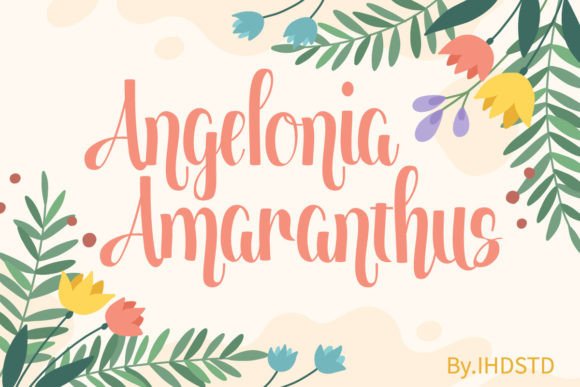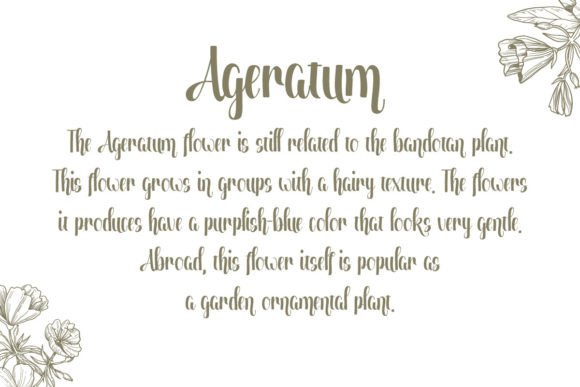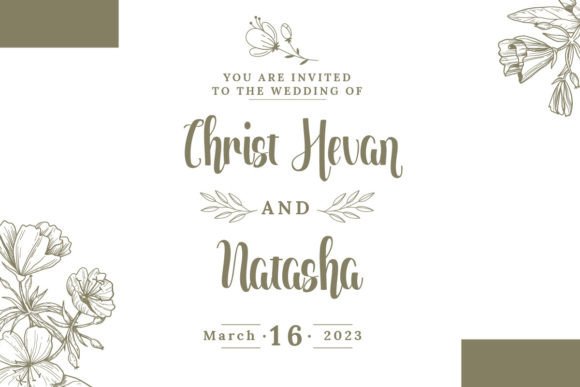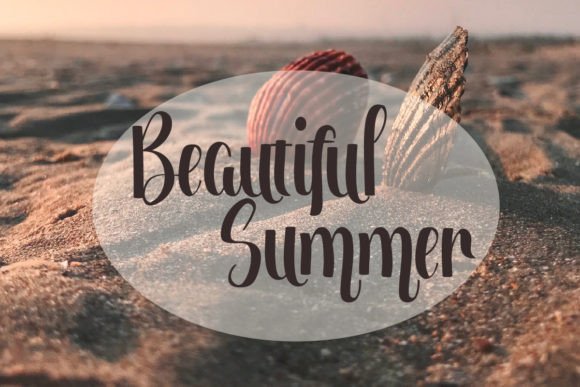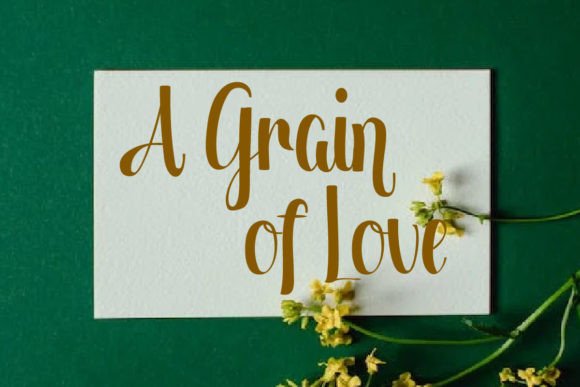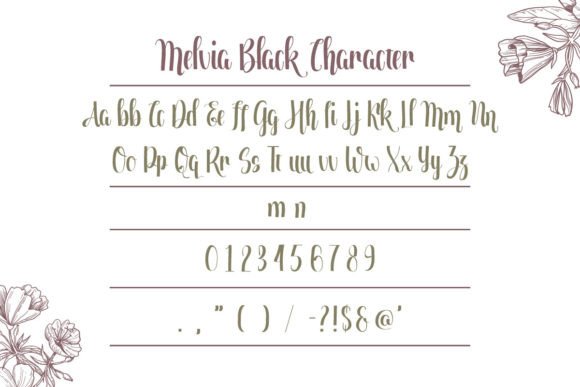
Introduction to Melvia Black Font
Have you ever found yourself staring at a blank canvas, waiting for the perfect spark to ignite your creative project? For designers, this moment is a familiar feeling. But what if you had the right tool to break the silence and unleash your imagination? Enter Melvia Black Font, a stylish and slightly quirky handwritten script font that’s about to become your new best friend.
| 👤 Author | IHD.STD |
As a valuable design resource, Melvia Black Font offers a unique flow and friendly personality that will make your designs stand out from the crowd. With its transparent background, you can easily combine it with other design elements to create high-quality visual content. And the best part? You can download it for free, making it an accessible addition to your design toolkit.
Honest Review: Melvia Black Font
As a designer, I’m always on the lookout for high-quality design resources to elevate my creative projects. Recently, I stumbled upon the Melvia Black Font, and I must say, it’s been a game-changer.
- ✨ High contrast and clean design, perfect for creating visually appealing text on a transparent background
- ✨ Great for use in logos, headings, and body text, making it a versatile design resource
- ⚠️ Limited font weights and styles, which might not be suitable for complex design projects
- ⚠️ Not suitable for small text sizes, as it may become difficult to read
Overall, I’m impressed with the Melvia Black Font. It’s a high-quality design resource that can elevate the look and feel of my creative projects. While it may not be perfect, it’s a great addition to any designer’s toolkit, especially for those looking for a clean and modern font.
Tips for Getting the Most Out of Melvia Black Font
Use the font in combination with other high-quality design resources to create a cohesive and professional look. Experiment with different font sizes and styles to add visual interest to your design.
The Melvia Black Font is perfect for creating titles, headings, and body text for creative projects such as logos, brochures, and infographics. The font’s transparent background feature makes it ideal for overlaying on images or backgrounds, adding a professional touch to your designs.